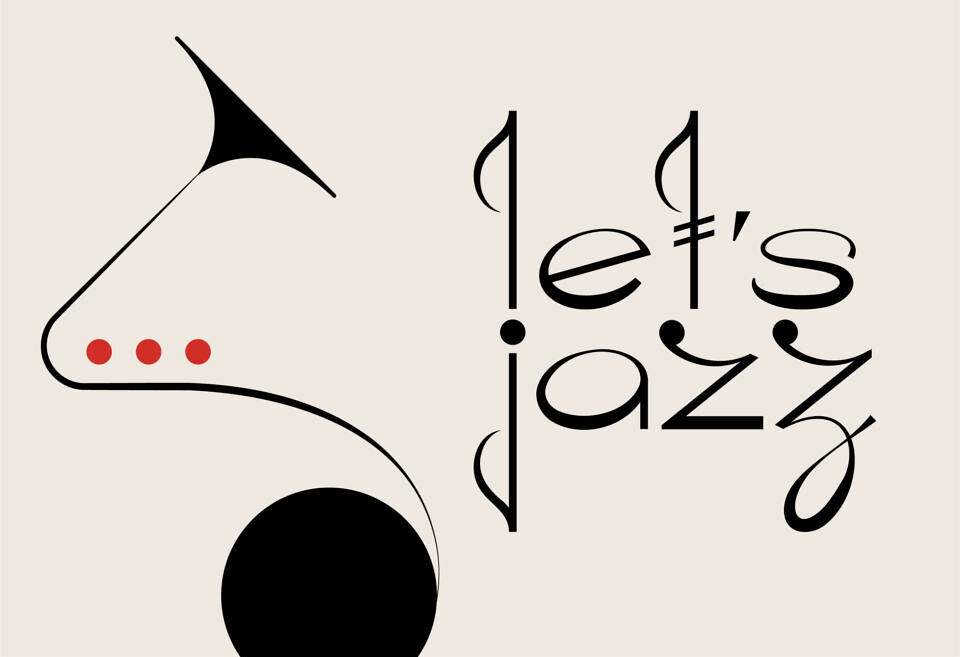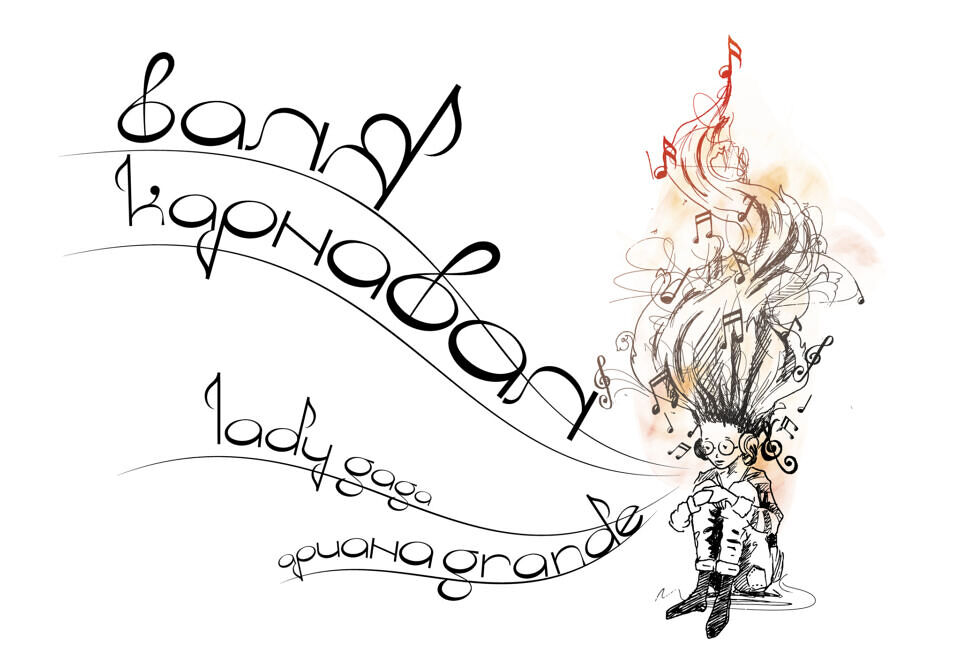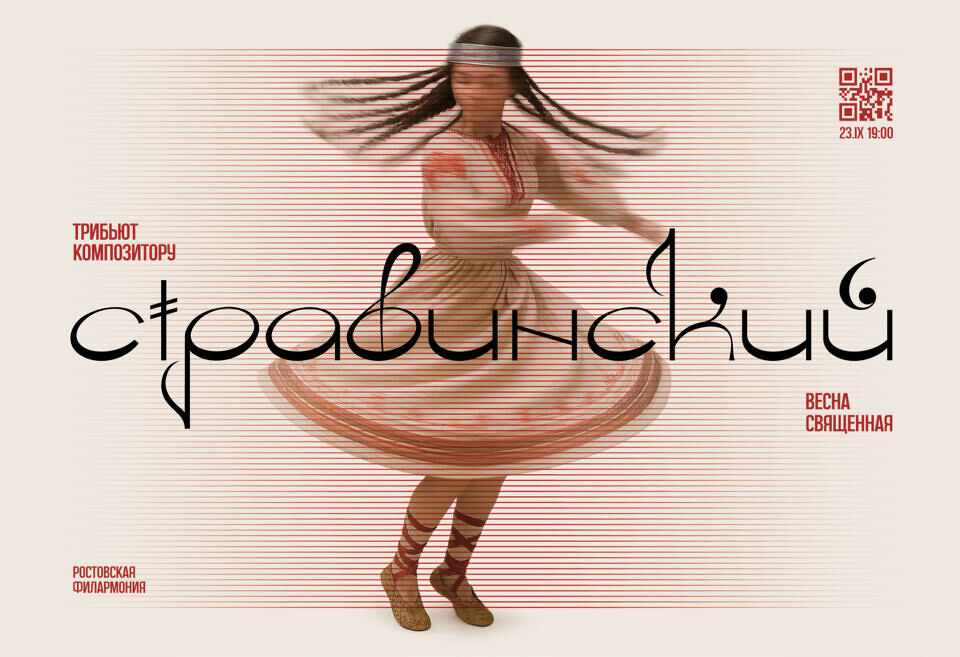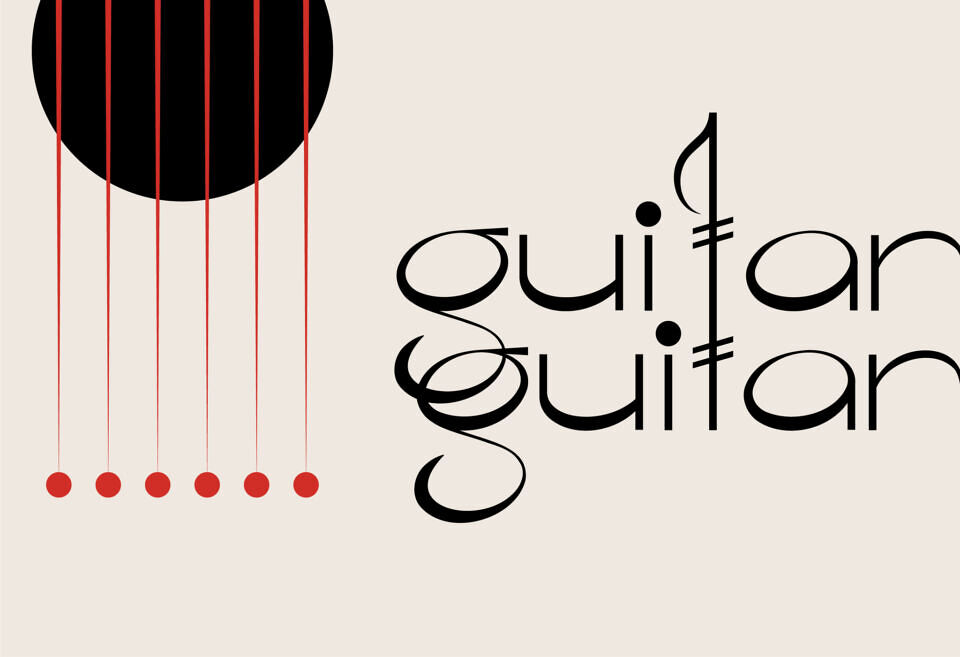
Fasol SP is an experimental decorative font featuring elements of calligraphy, ancient cultural scripts, and musical notation. The presence of a treble clef and rhythmic visual repetitions in the letter strokes resembles a musical score. Some glyphs mimic musical symbols and notes.
The font includes 122 characters: punctuation marks, numerals, and supports Russian, Ukrainian, English, and about 60 other languages. Active loops, curls, and asymmetries create a sense of dance and movement.
There is rhythm and structure, but they are subtle — the font seems to deliberately “encode” the usual letter shapes. This font is ideal for designing posters for musical events, avant-garde artist and composer concerts, jazz and folk performances, as well as album covers and logos.